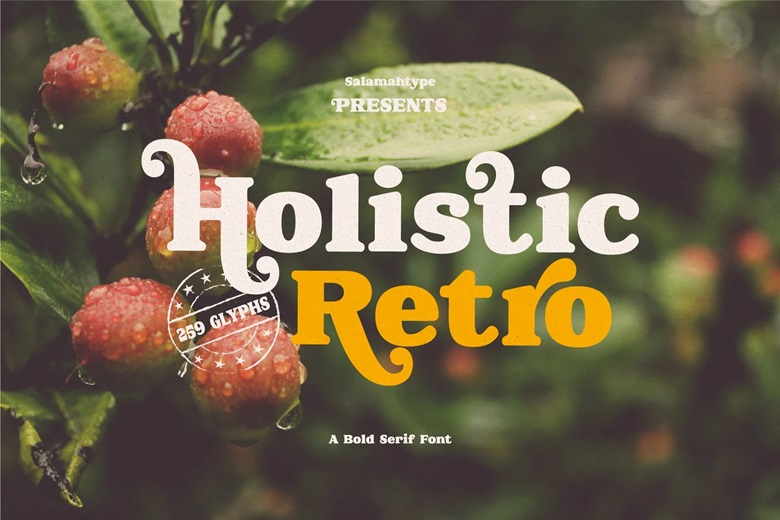
Holistic Retro Font
Holistic Retro is a bold smooth serif typeface in a retro vintage fashion that adds the element of nostalgia to your work. It contains plenty of options in terms of creative freedom, which would be ideal to make stunning logos, branding, posters, social media posts, and digital projects.
This font is a mixture of old-fashioned curves and contemporary elements, so it can be used in both business and creative work. Nothing is better than adding an aged vintage touch to your work with Holistic Retro!